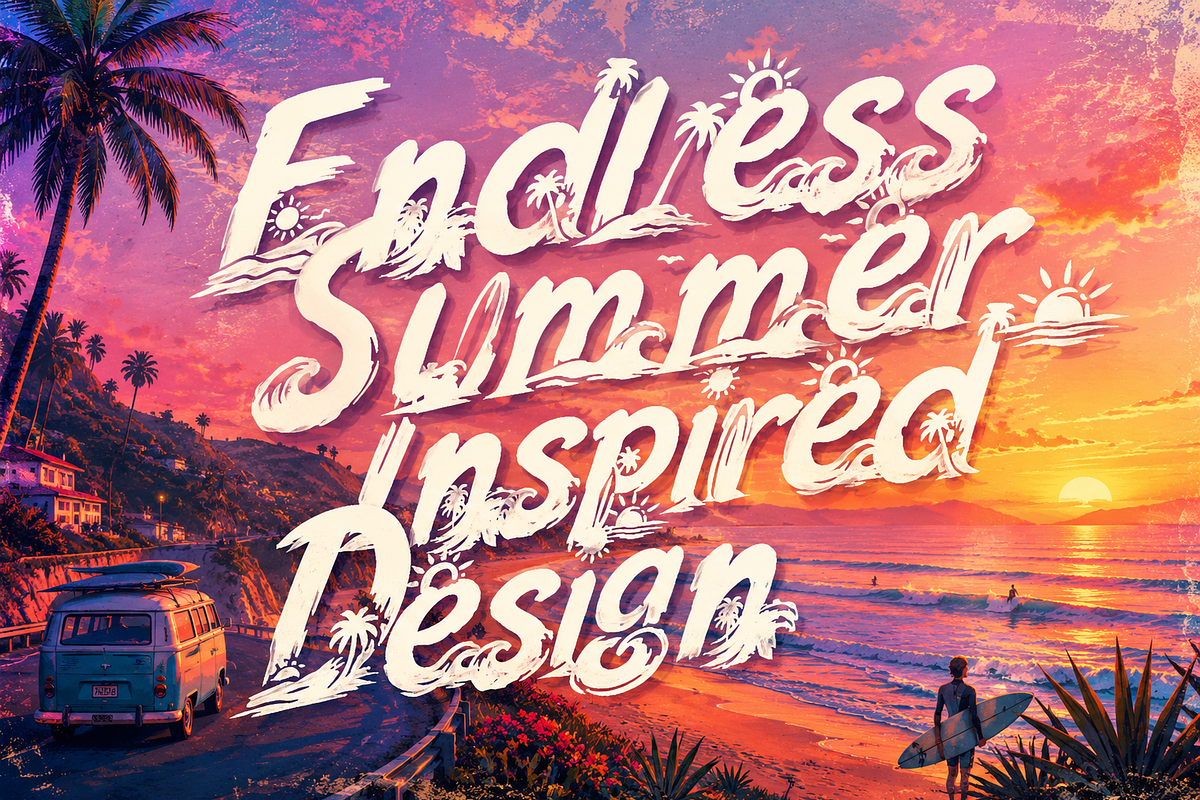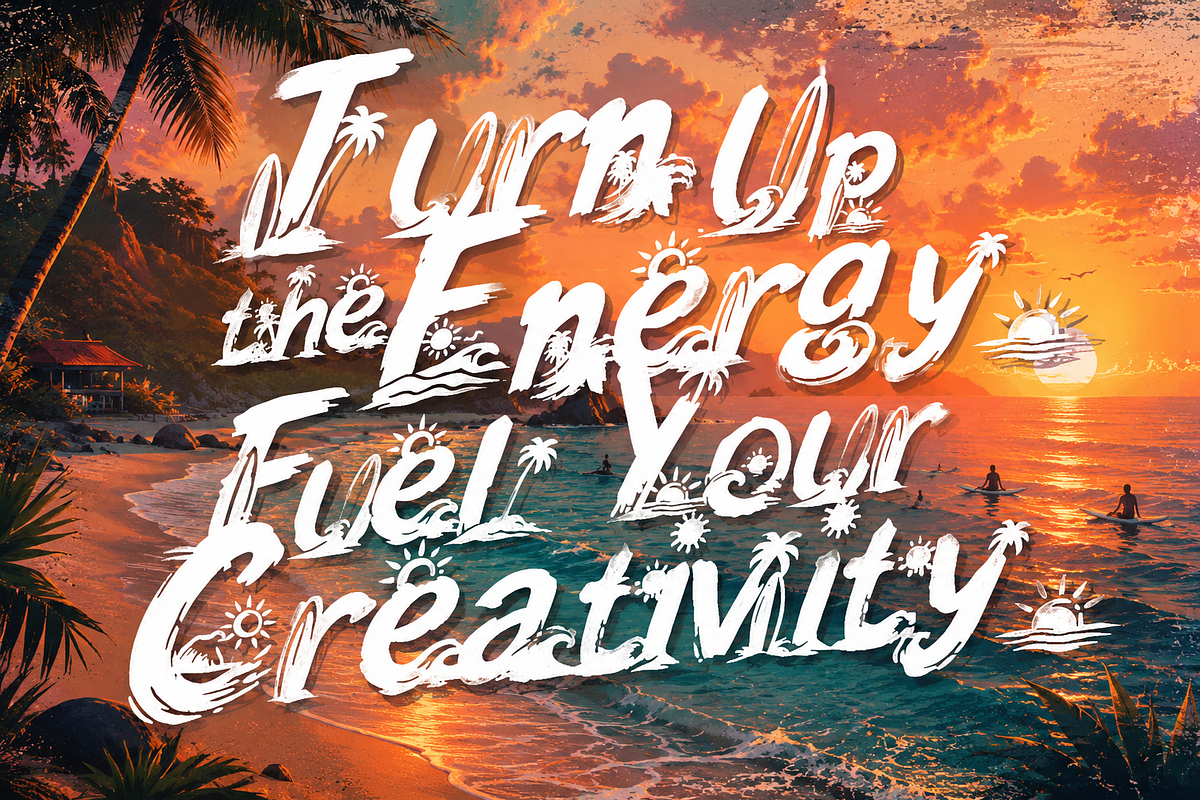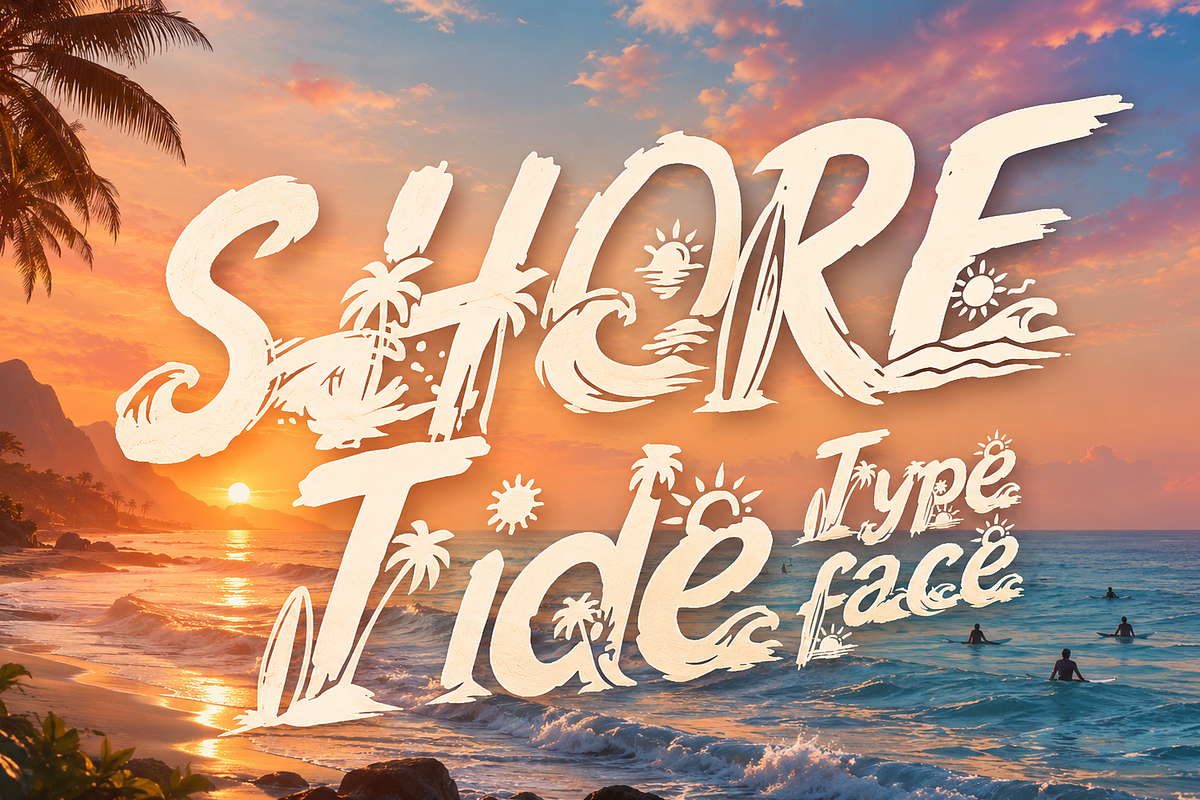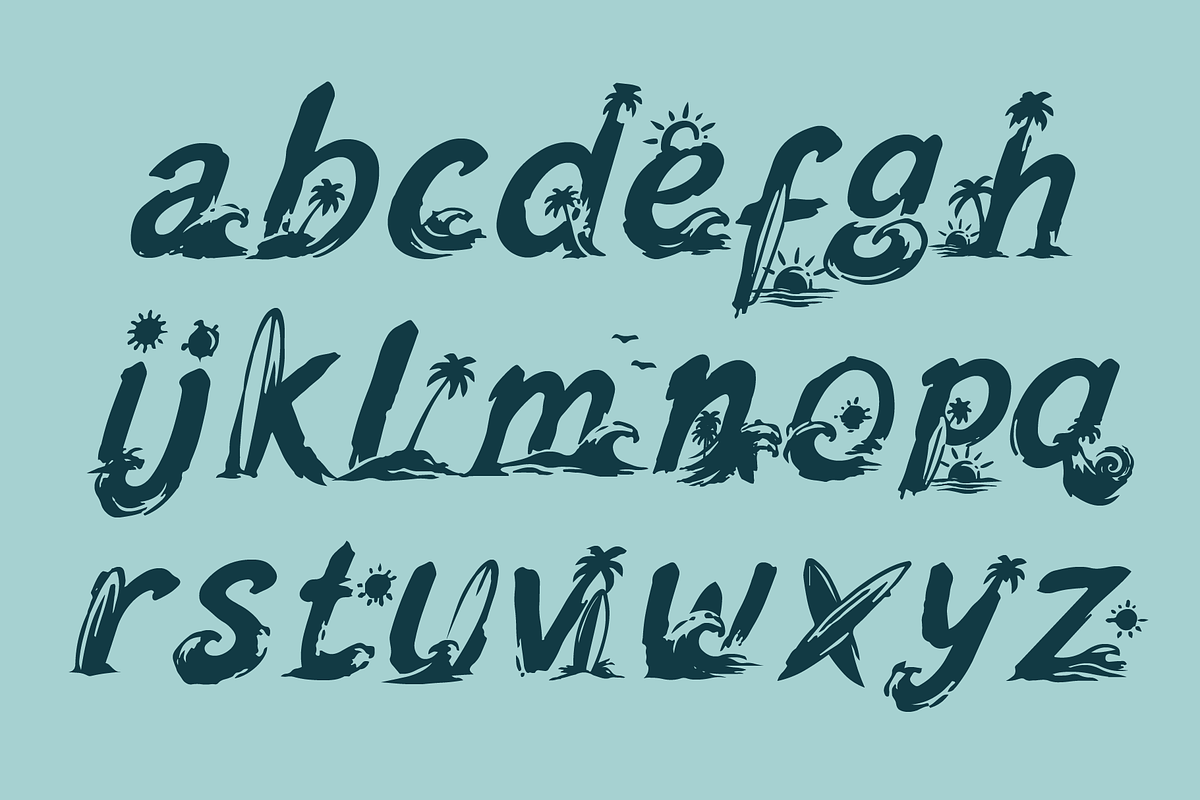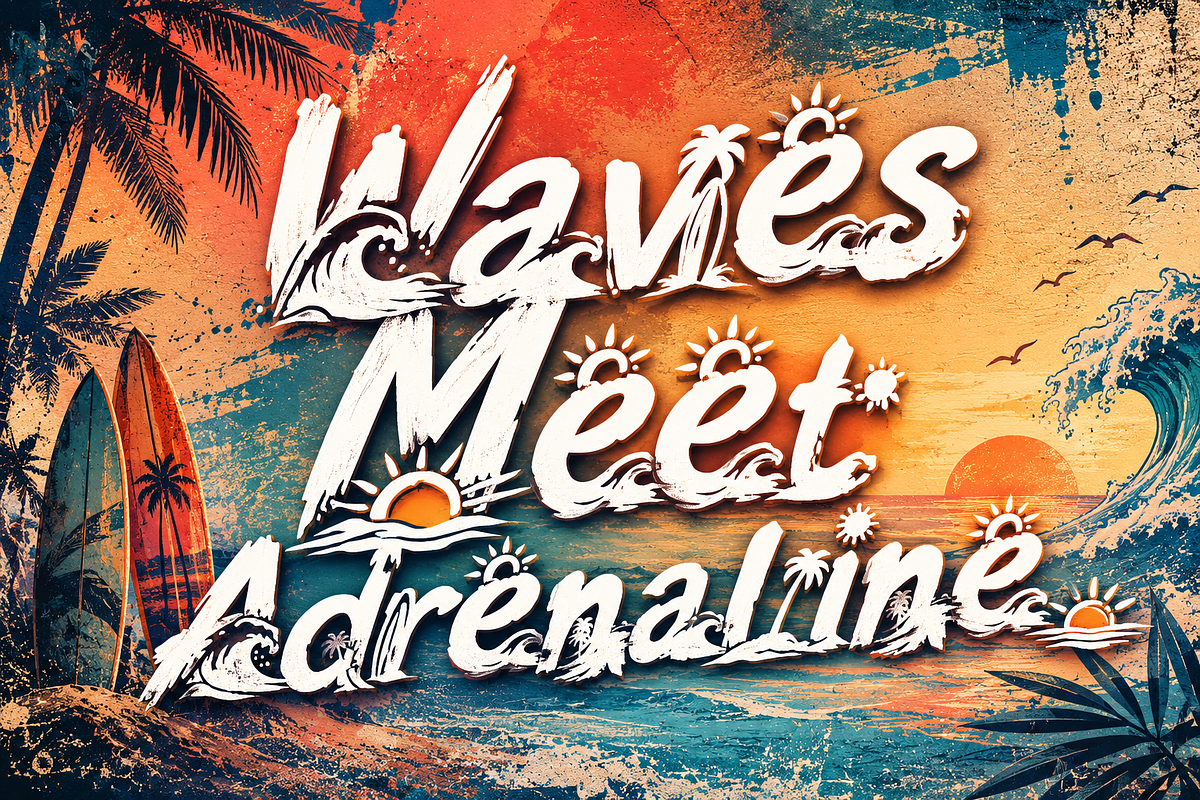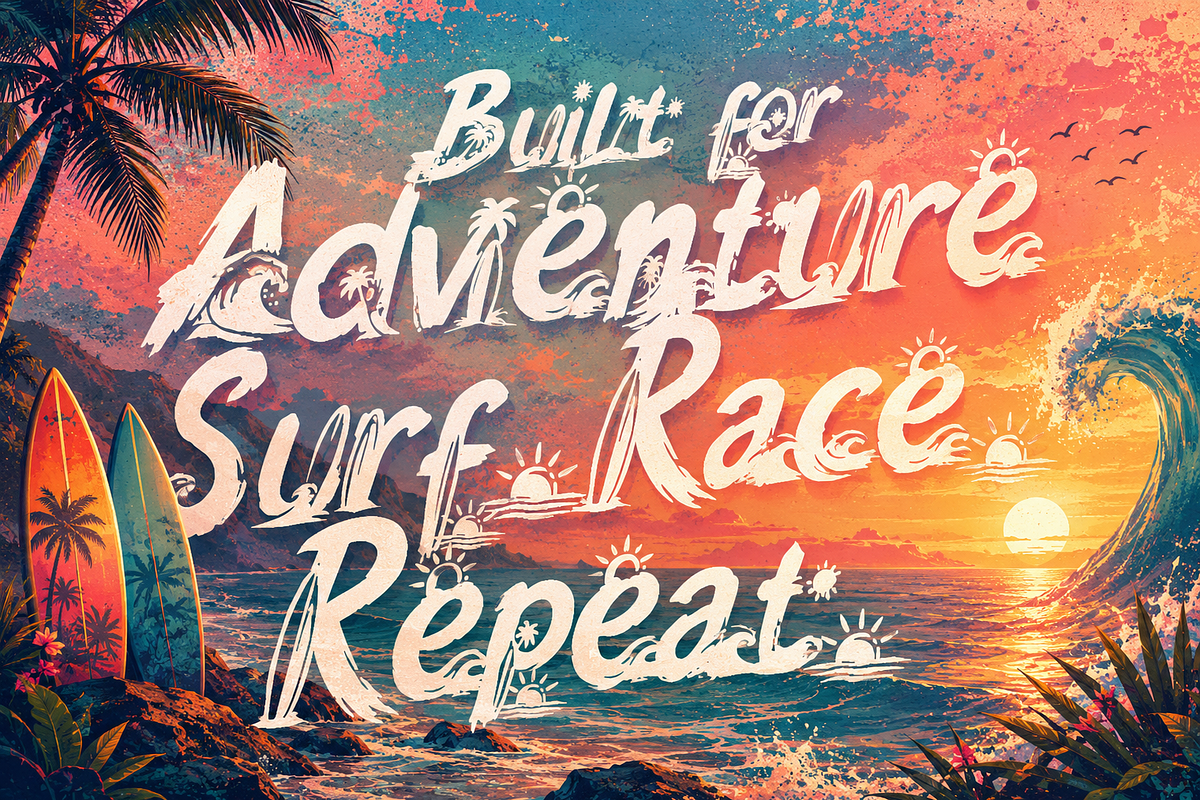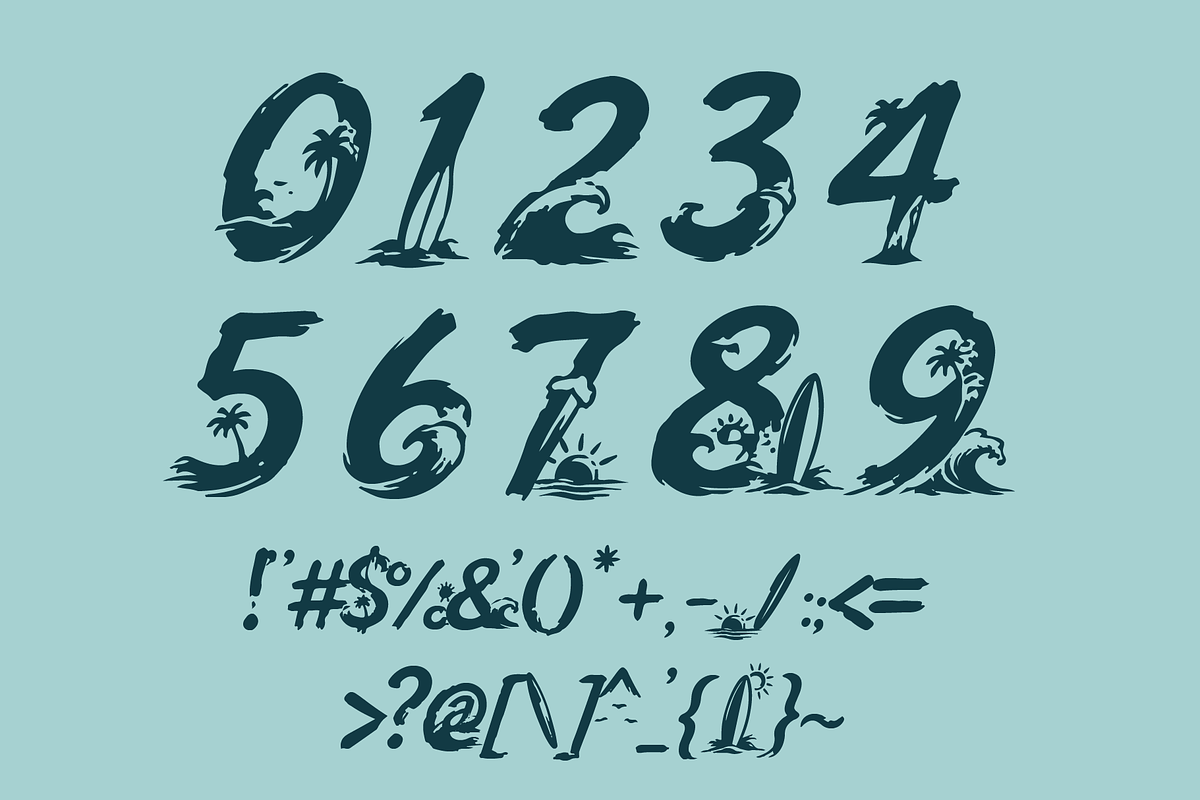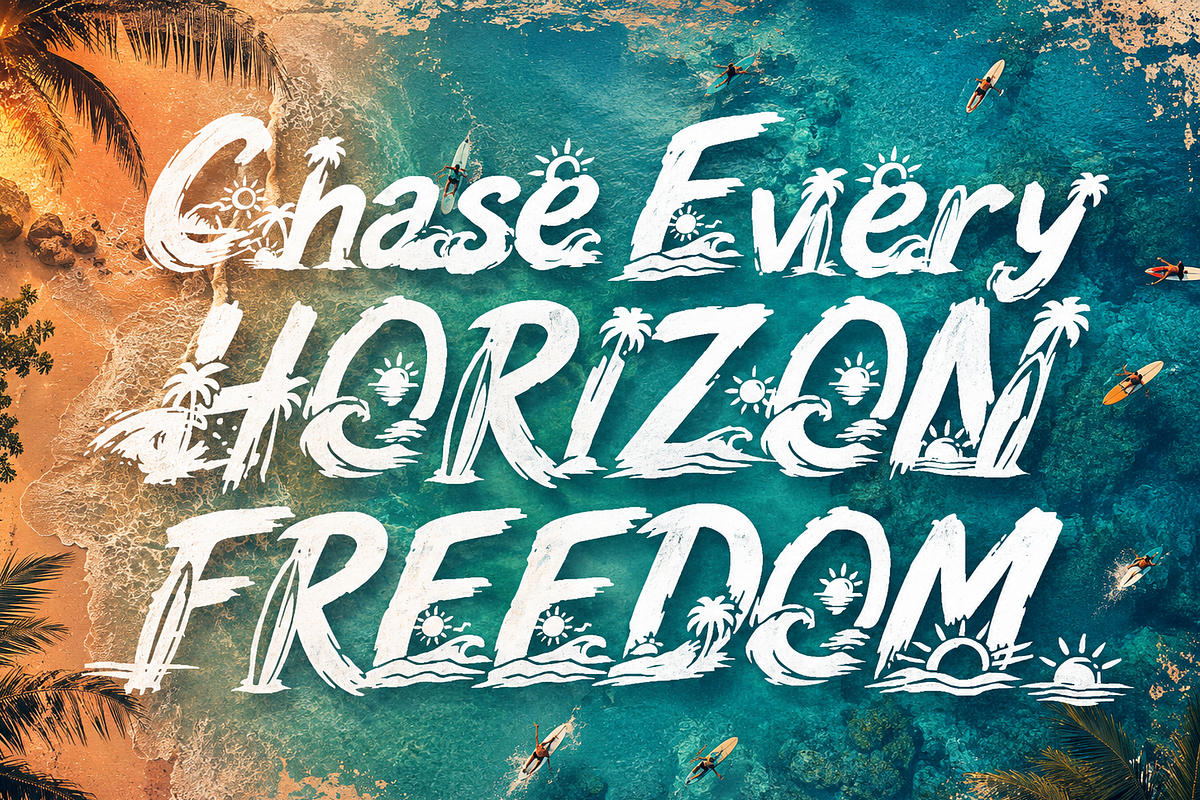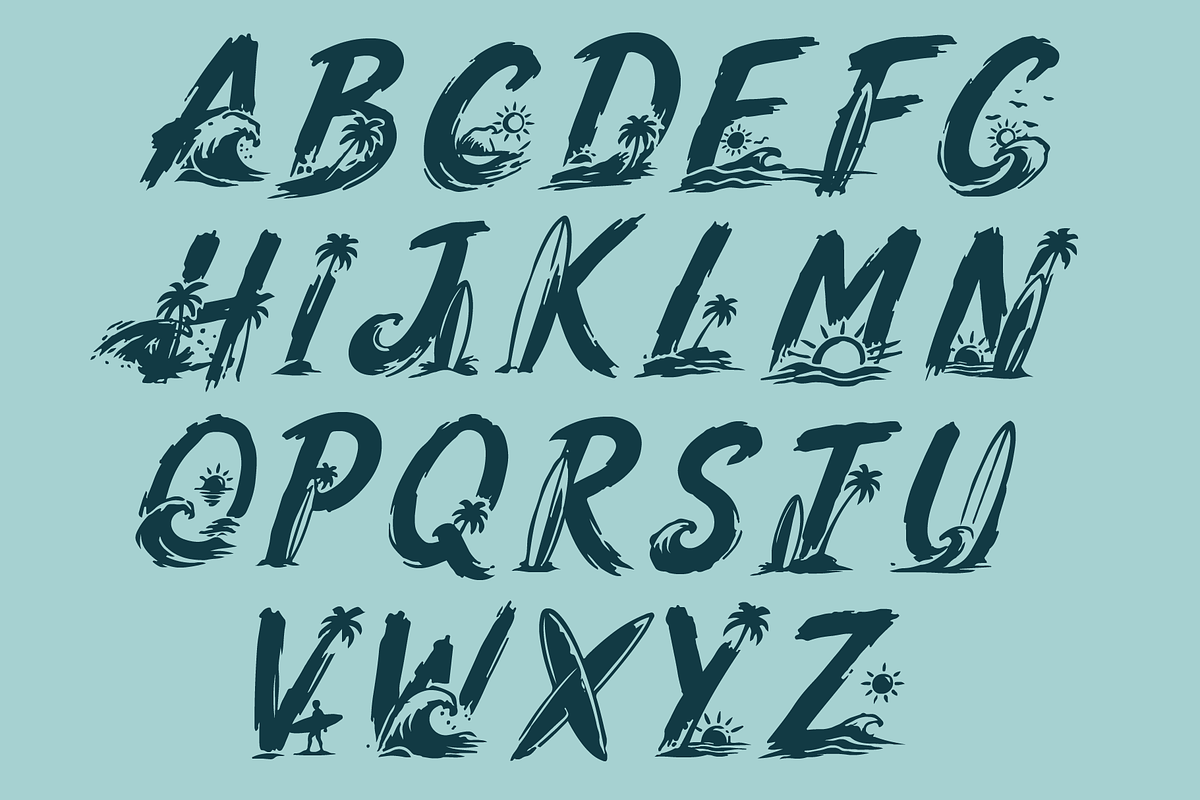
ShoreTide - Surf Ocean Waves
ide the wave with ShoreTide, a bold display font inspired by ocean swells, sandy beaches, and the carefree surf lifestyle. Featuring handcrafted wave-inspired details, tropical beach elements, and energetic lettering, this typeface captures the spirit of endless summer. Perfect for surf brands, beachwear, travel posters, summer events, logos, packaging, social media, merchandise, stickers, and coastal-themed designs. Whether you're creating a vintage surf club logo or a vibrant tropical poster, Beach Surf brings authentic seaside energy to every project.